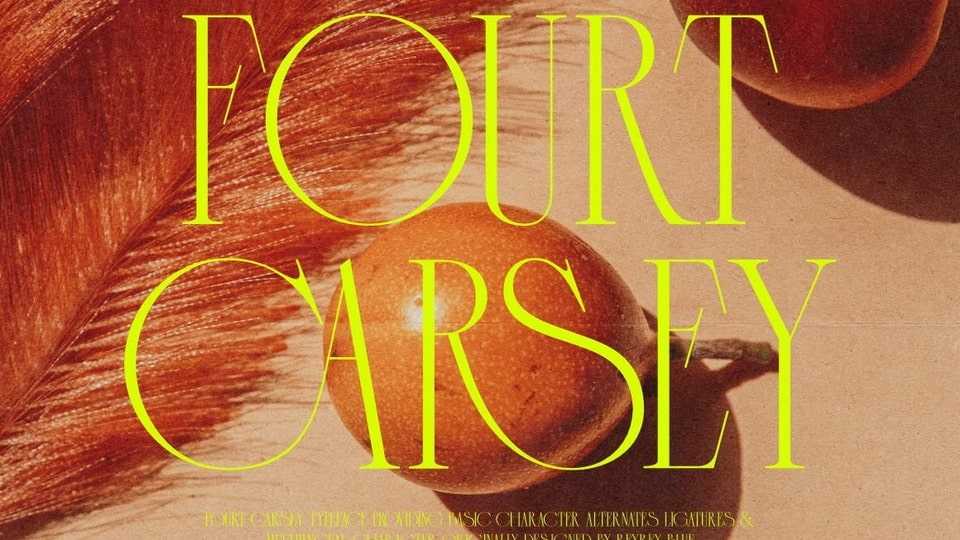
Download Fourt Carsey font, an elegant and modern typeface that take classy and fashionable touch. Fourt Carsey font is perfectly suitable for layout design for quotes or body copy, best used as a display for headings
Designer: Reyrey Blue